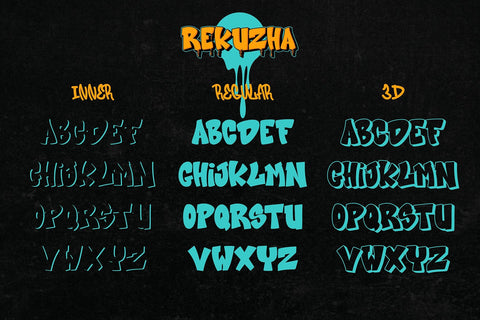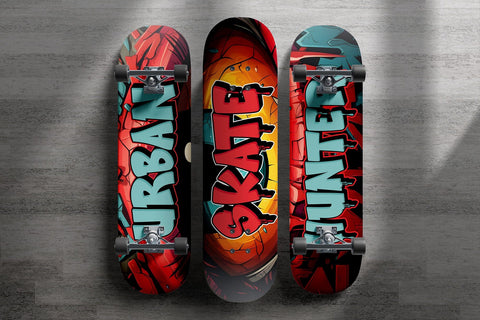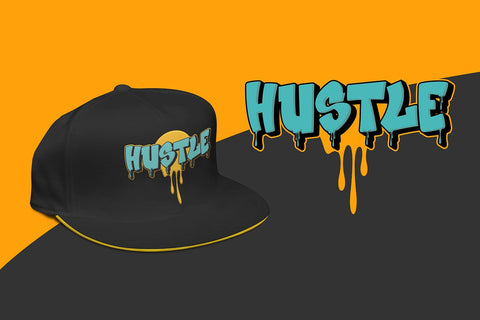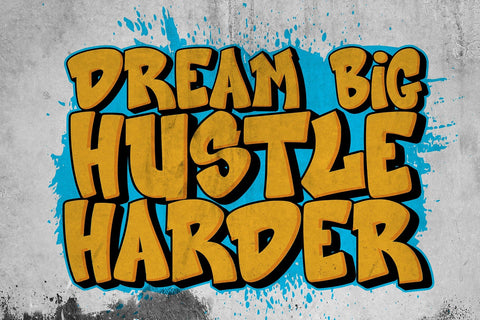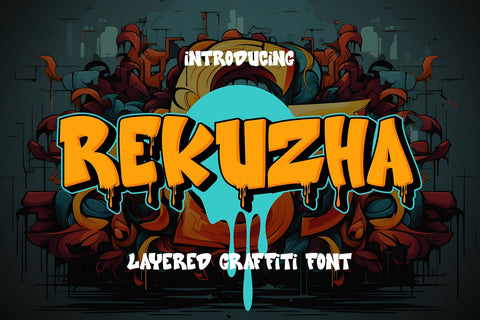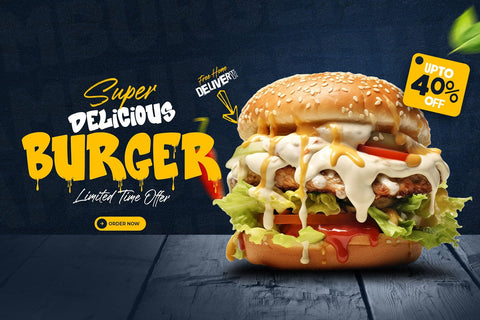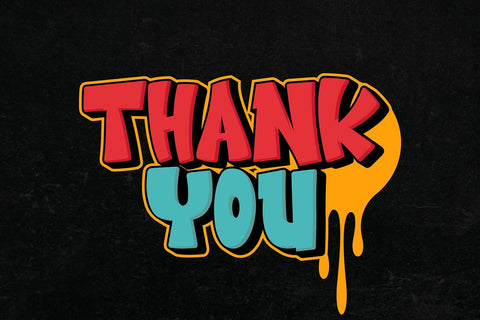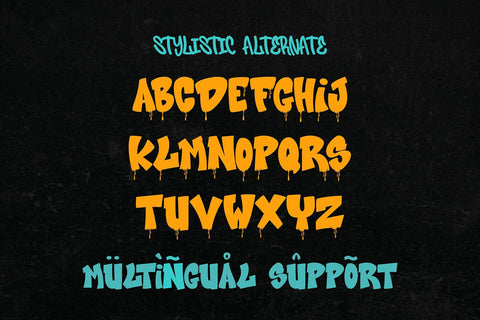
Rekuzha - 3d Layered Graffiti Font
"Rekuzha" is a 3D layered graffiti font characterized by thick characters. Fonts in this style typically feature bold and expressive letterforms with substantial strokes, creating a visually impactful appearance. Additionally, being a layered font, "Rekuzha" offers the ability to stack different styles on top of each other, allowing for creative experimentation and depth in design.
- Graffiti Characters looks